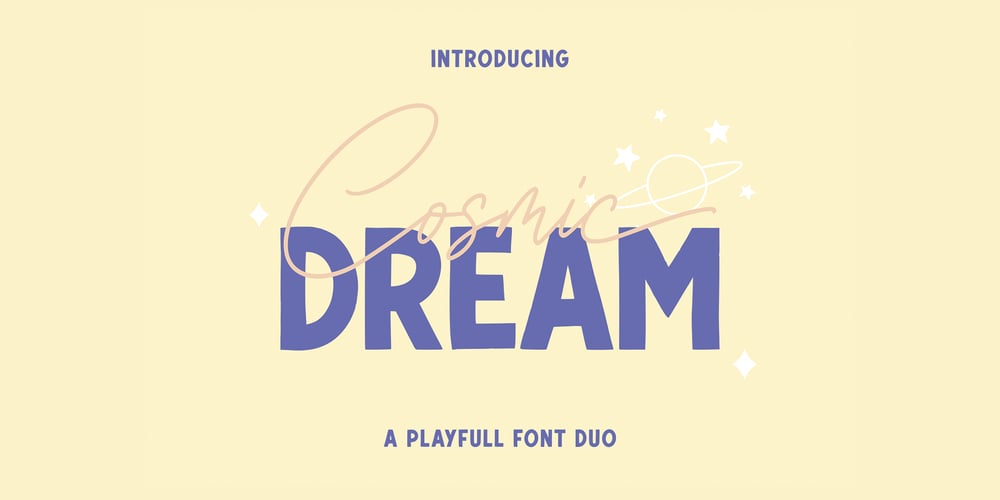
Cosmic Dream Sans Font Family was designed by Tegar Hafizhal, Robby Hermawan and published by Carpiola Studio. Cosmic Dream Sans contains 2 styles and family package options. Cosmic Dream consists of two fonts designed to complement each other perfectly. Together or apart, these fonts are ideal for adding a chic and cheery touch to your crafts. This font is PUA encoded which means you can access all glyphs and swashes with ease!